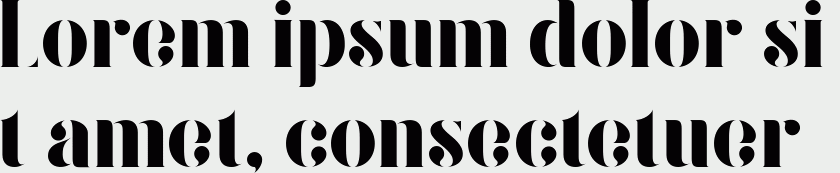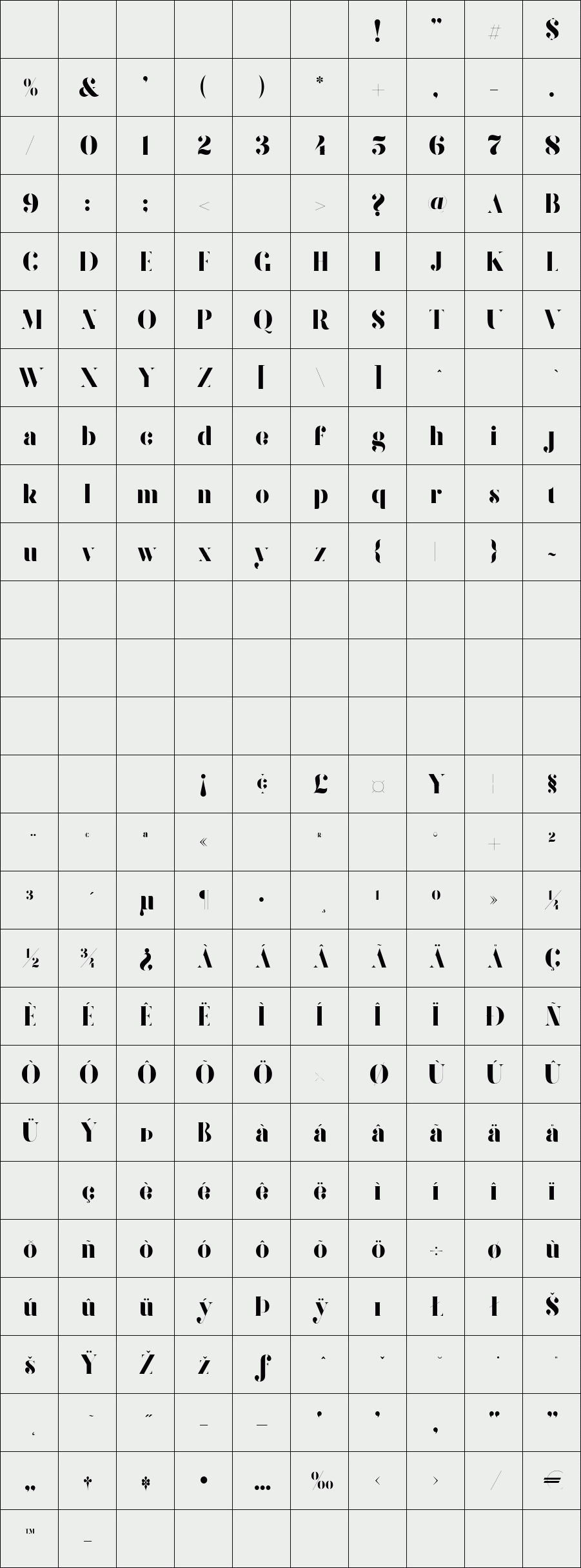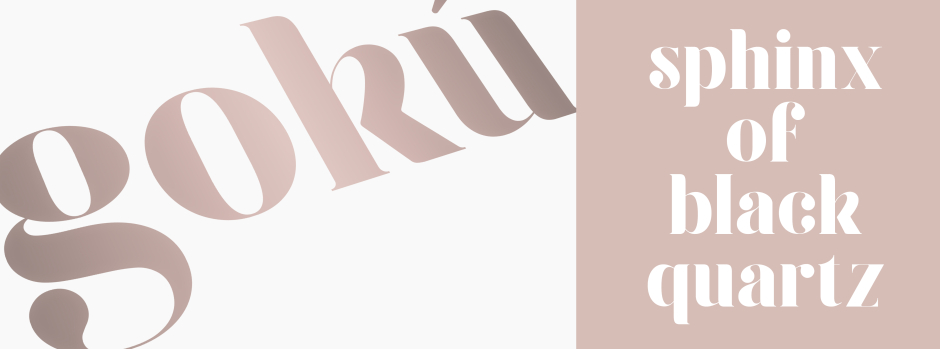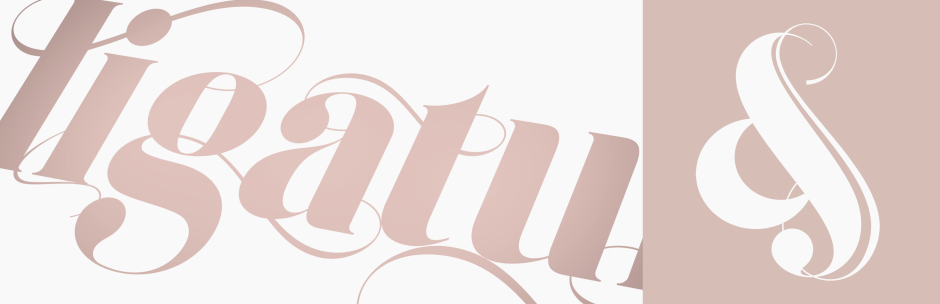
Gokú
/ Gokú stencil
Gokú is a multilingual typeface, initially designed as a stencil font for the Basel & Geneva Watch Launch Event for Watches of Switzerland. It is host to a large array of ligatures, glyphs and alternates. Bold lines, subtle curves and improved legibility make it perfect for any application.